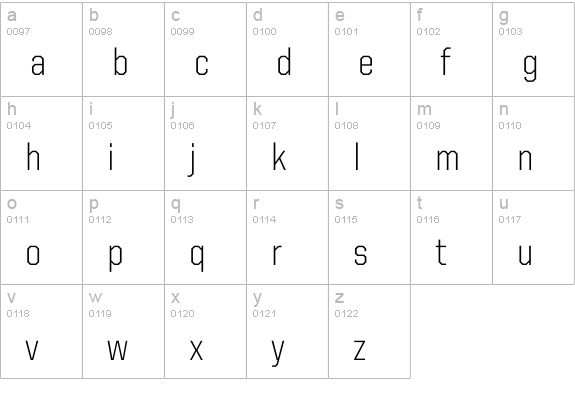
United Sans SemiCond Light Font Details
United Sans SemiCond Light is a refined, elegant variant in the United typeface family \xE2\x80\x94 well suited to elegant body text, refined sub-headings, and luxury branding.
United Sans SemiCond Light font is a visually stunning and versatile typeface that effortlessly combines elegance and modernity. With its sleek and slender letterforms, this font exudes a sense of sophistication and refinement, making it the perfect choice for any design project that requires a touch of class. The delicate curves and clean lines of United Sans SemiCond Light create a harmonious and balanced aesthetic, ensuring that your text will be both legible and pleasing to the eye. Whether you're designing a logo, creating a website, or crafting a brochure, this font will bring a touch of professionalism and finesse to your work. What sets United Sans SemiCond Light apart is not only its exceptional design but also its accessibility. We believe that great design should be available to everyone, which is why we are thrilled to offer United Sans SemiCond Light font for free. You can easily download this font at FontsMarket.com, where you'll find a vast collection of high-quality fonts to suit any design need. The versatility of United Sans SemiCond Light is another feature that makes it an invaluable addition to your font library. Its light weight and semi-condensed proportions make it ideal for a wide range of applications, from headlines and titles to body text and captions. It effortlessly adapts to different sizes and contexts, ensuring that your message is always conveyed with clarity and style. Whether you're a professional designer or a novice enthusiast, United Sans SemiCond Light font will elevate your designs to new heights. Its timeless appeal and effortless beauty will captivate your audience and leave a lasting impression. So why wait? Download United Sans SemiCond Light font today and unlock the power of great design for free at FontsMarket.com.